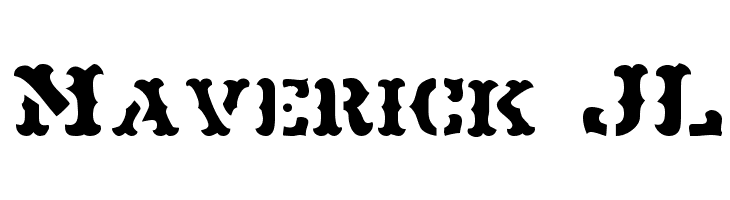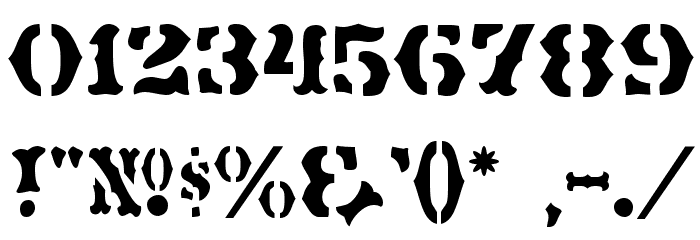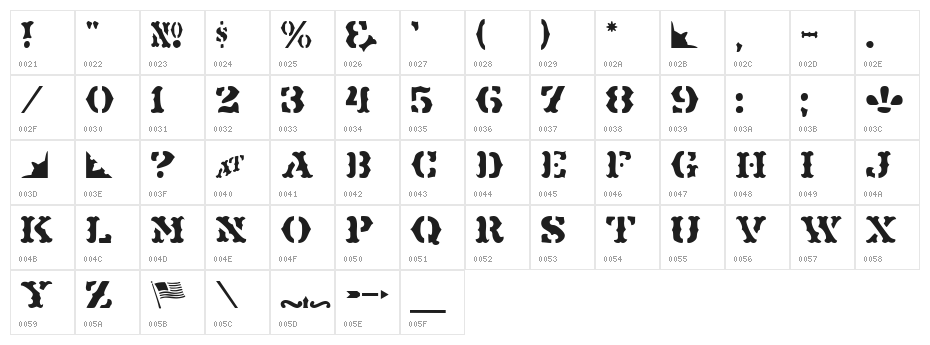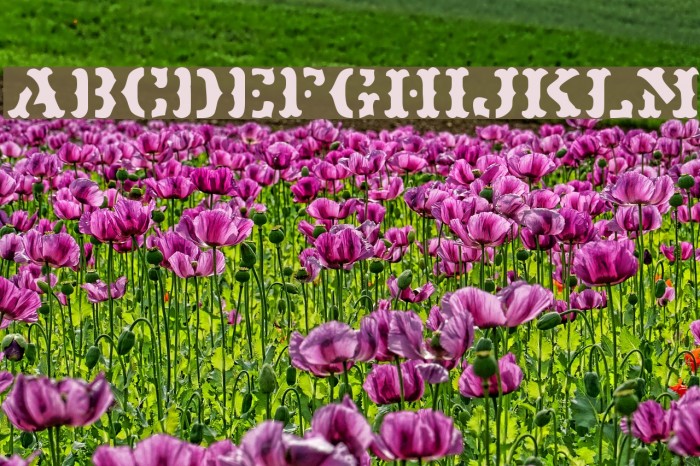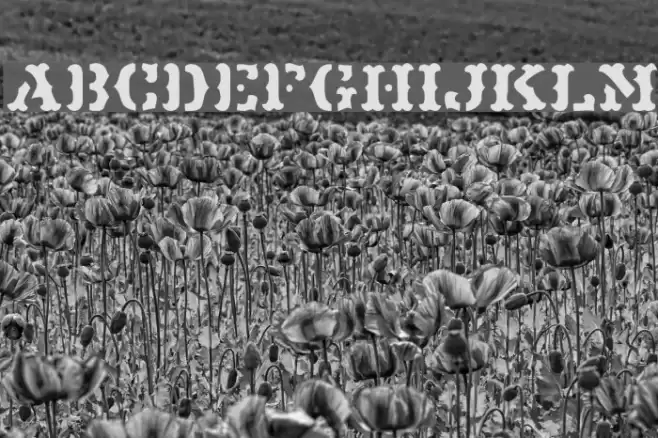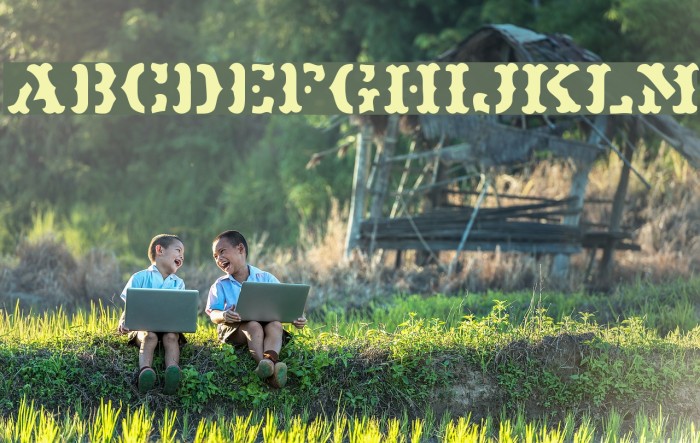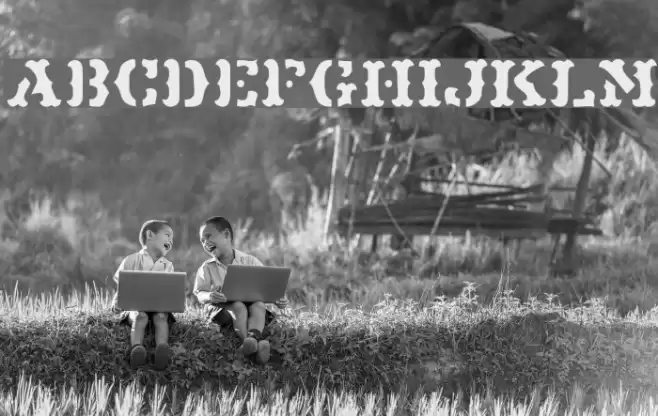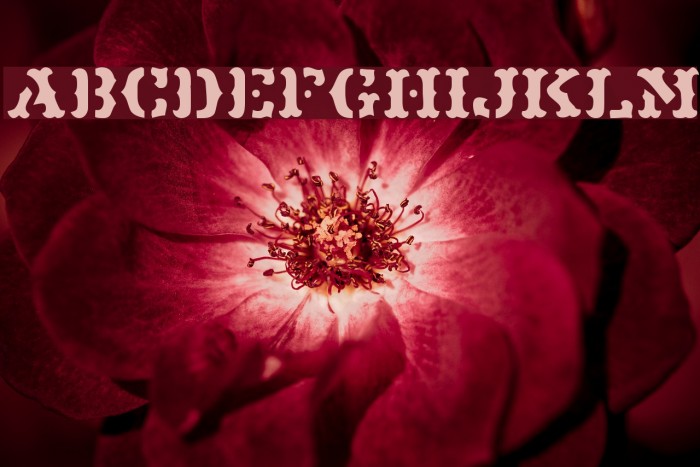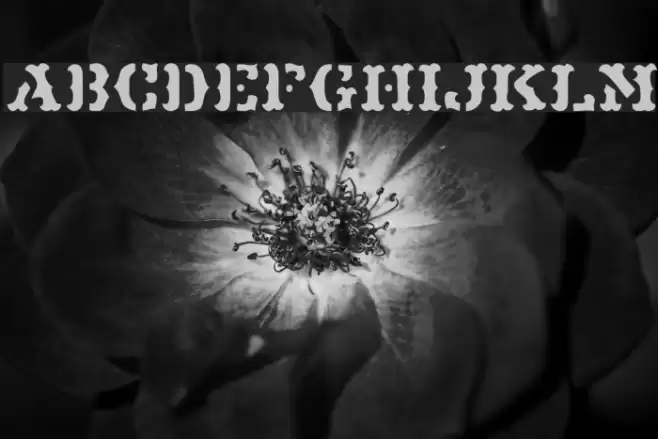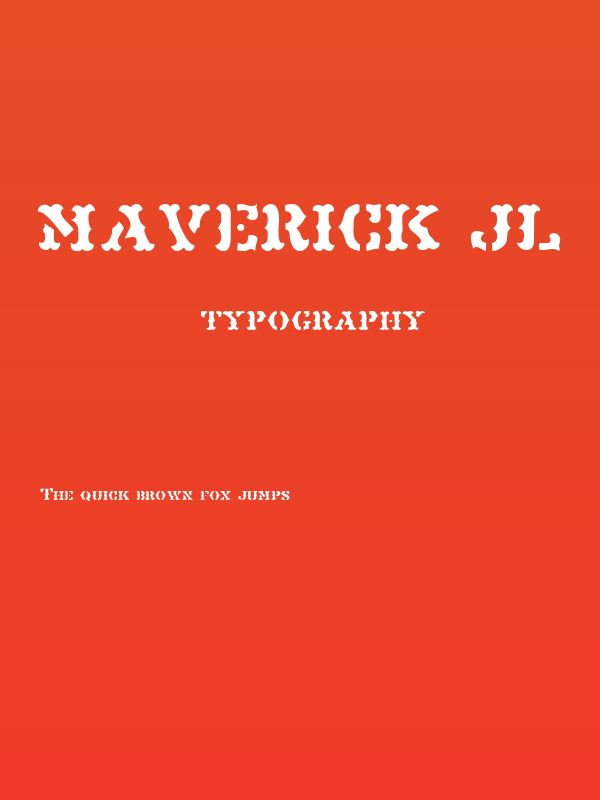
Maverick JL Font
Maverick JL Description
This font features a bold, stencil-like design with strong geometric shapes and cut-out sections, creating a rugged and industrial feel. The uppercase and lowercase letters maintain a consistent style, with sharp angles and a uniform thickness that enhances readability while adding a distinctive edge. The numbers and special characters follow the same design principles, ensuring a cohesive look across all text elements. This font's unique style makes it ideal for projects that require a bold statement or an urban, gritty aesthetic.
Overall StyleIndustrial, Bold, Stencil
Proposed ProjectsIdeal for branding, posters, signage, and any project needing a bold, industrial aesthetic.